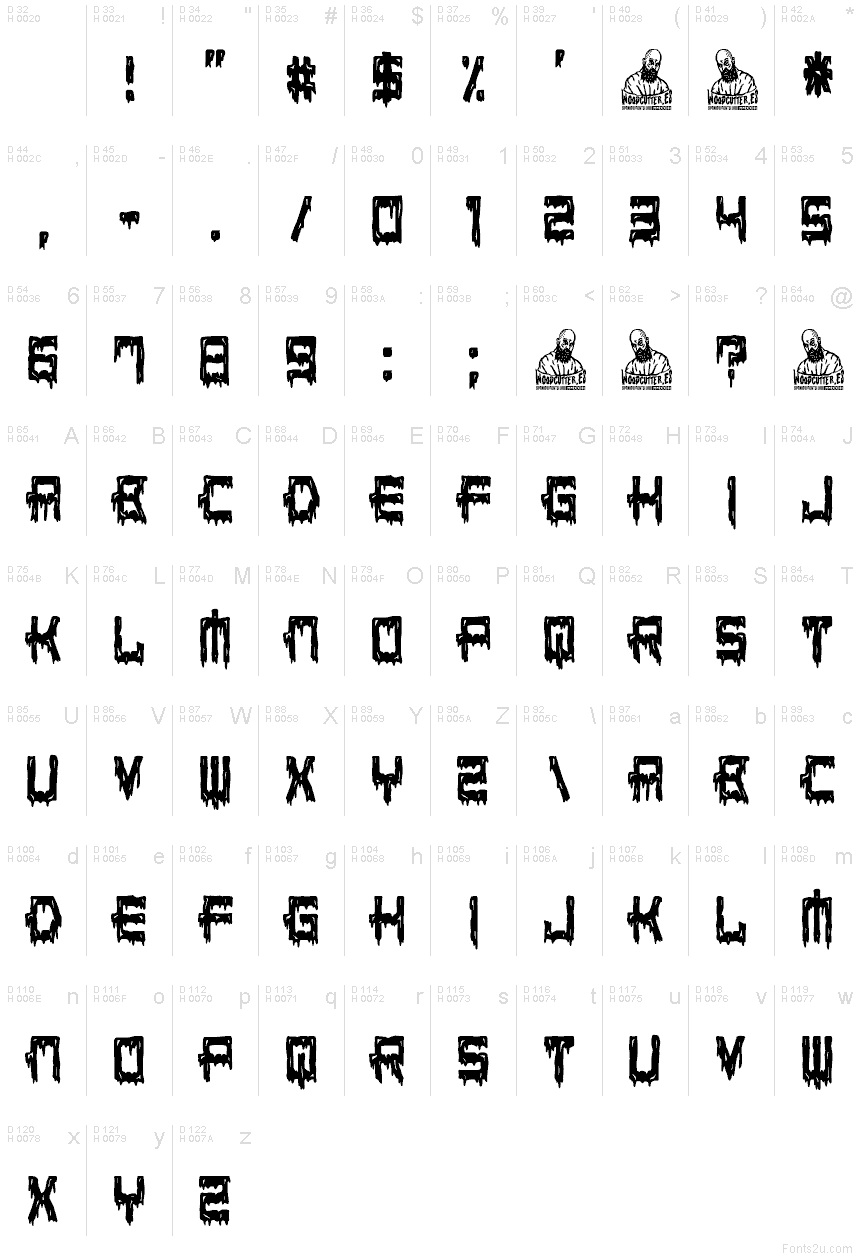
Bloody Leader
Bloody Leader font by Woodcutter is a free horror display font built for big, cinematic scares. Thick, blocky letters drip with inky, uneven trails, forming a gnarled silhouette that reads fast while still feeling sticky and dangerous. The rhythm is chunky and deliberate, so every headline lands like a jump cut.
Using Bloody Leader, your visuals snap into Halloween mode instantly—great for haunted house posters, slasher movie titles, escape room branding, game splash screens, horror podcast covers, and seasonal merch. Set it large with a touch of extra tracking to keep the drips breathable, and pair with a clean geometric sans to steady the chaos of this free font.